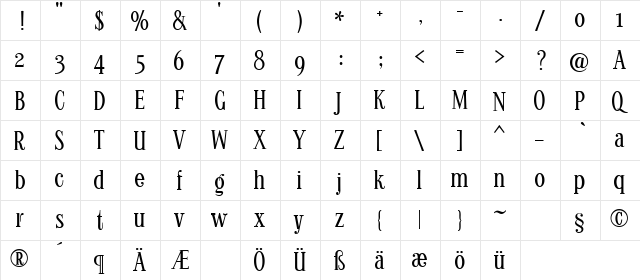
Kontor Display
| Style | Display |
Design Context for Kontor Typeface
Kontor brings ornamental detail and strong personality to headlines and identities, where visual impact matters more than quiet functionality.
Font Pairing: Pair with a clean neutral sans-serif for body copy to let Kontor's character lead without overwhelming the composition.
Pro Tip: Treat Kontor as the centrepiece of your typographic hierarchy. One strong heading set in a decorative face can carry an entire layout.